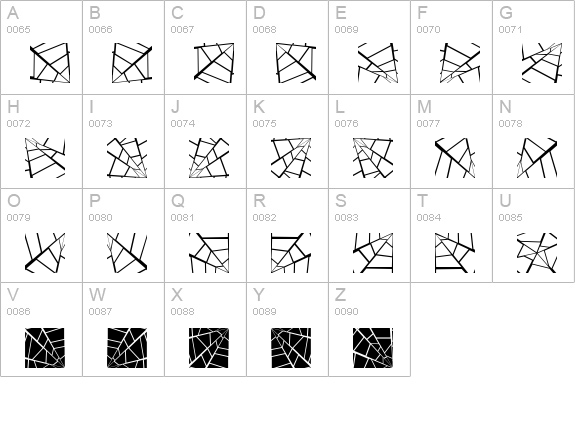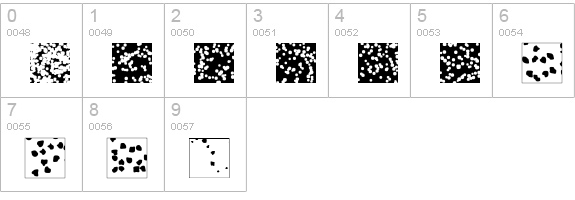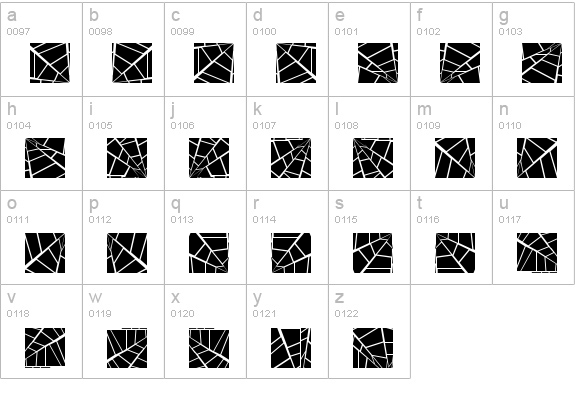
XMoreTexture font is a unique and eye-catching typeface that adds a touch of creativity and personality to your design projects. With its textured appearance, this font is perfect for adding depth and interest to headings, titles, and other display text. The intricate details of the texture give a handmade and artisanal feel to your designs, making them stand out from the crowd. Best of all, XMoreTexture font is available for free download at FontsMarket.com. This means you can easily access and use this font in your projects without any cost involved. Whether you're working on a print design, digital project, or anything in between, XMoreTexture font is a versatile and stylish choice that is sure to make an impact. Download it today and elevate your designs with this stunning textured font.